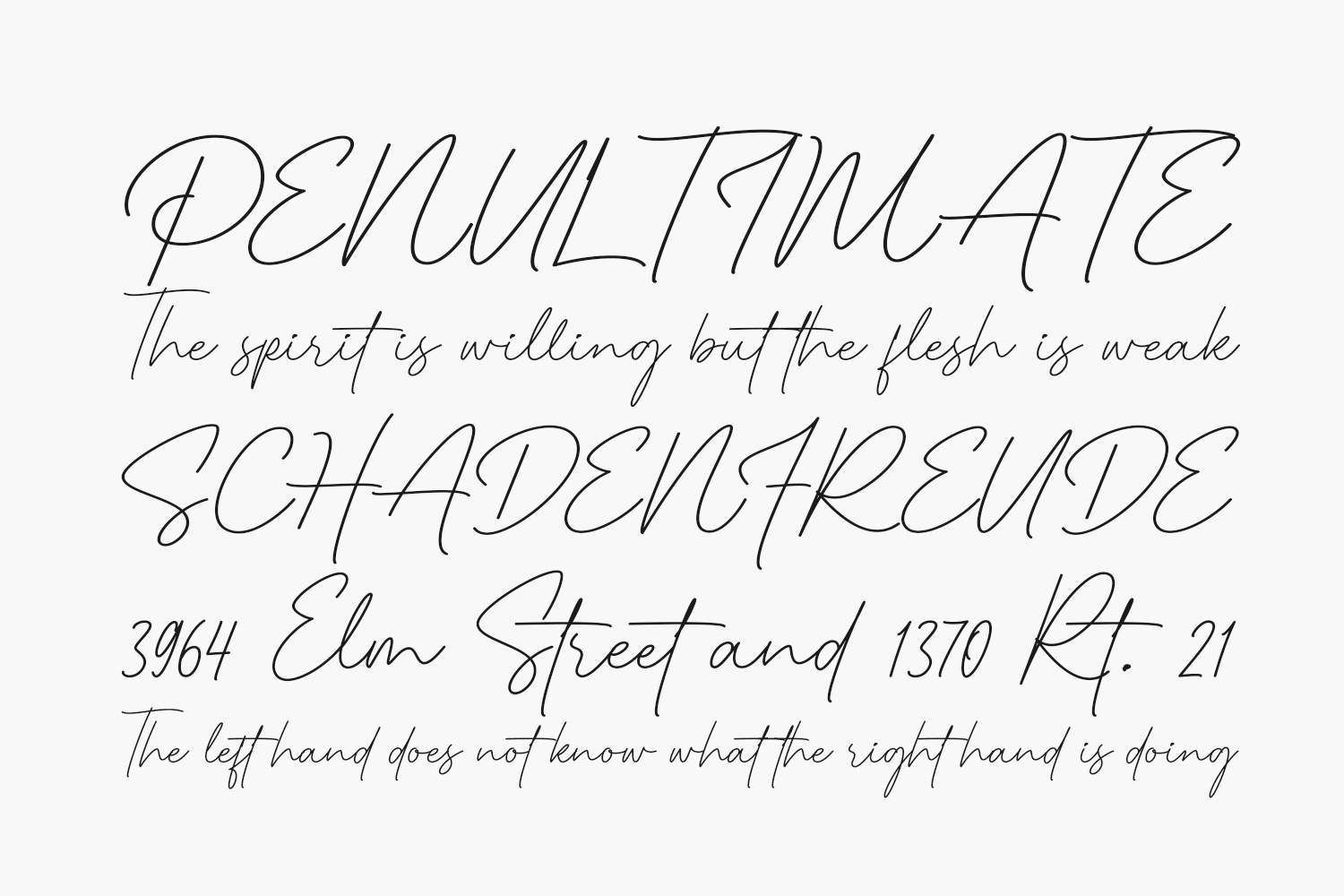
Luthon Southard Script Free Font is a lovely duo mix of a beautiful script and an elegant serif font. Incredibly versatile, this font fits a wide pool of designs, elevating them to the highest levels. Luthon Southard Script Free Font was designed by Lemonthe and is free for personal use only. Please purchase the full version for commercial use.